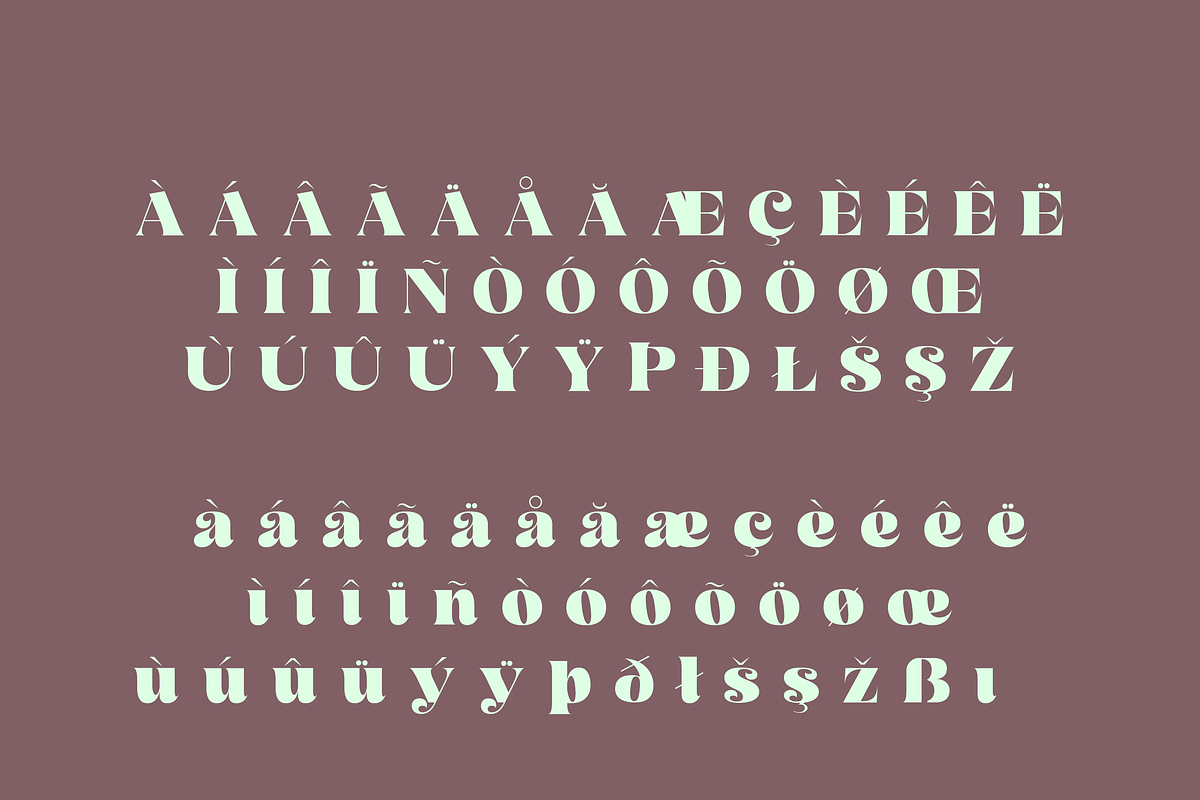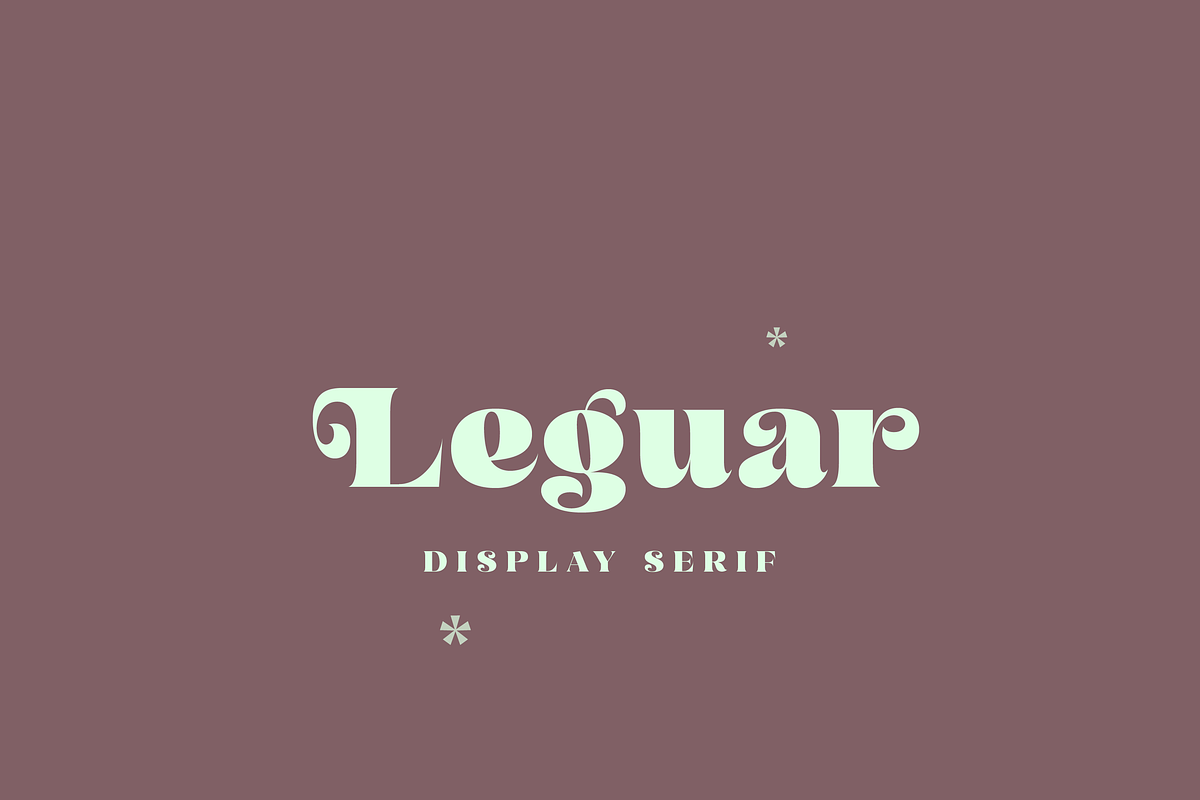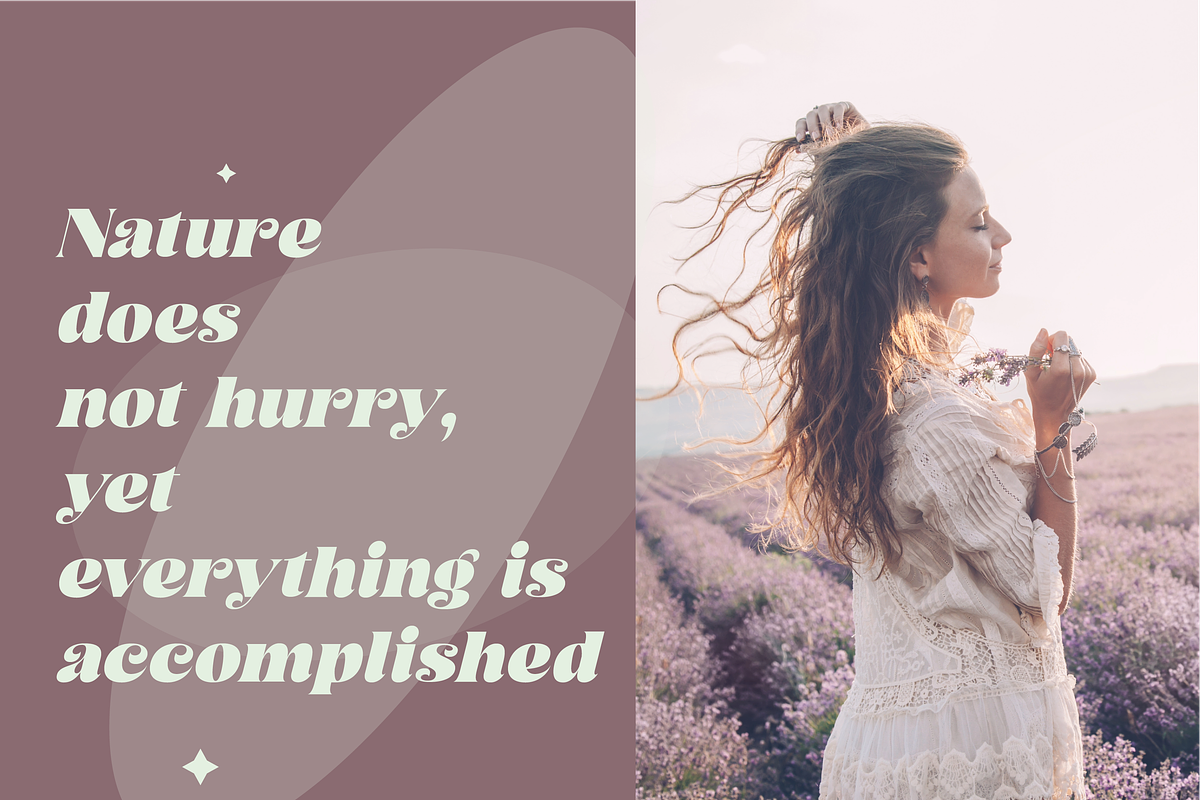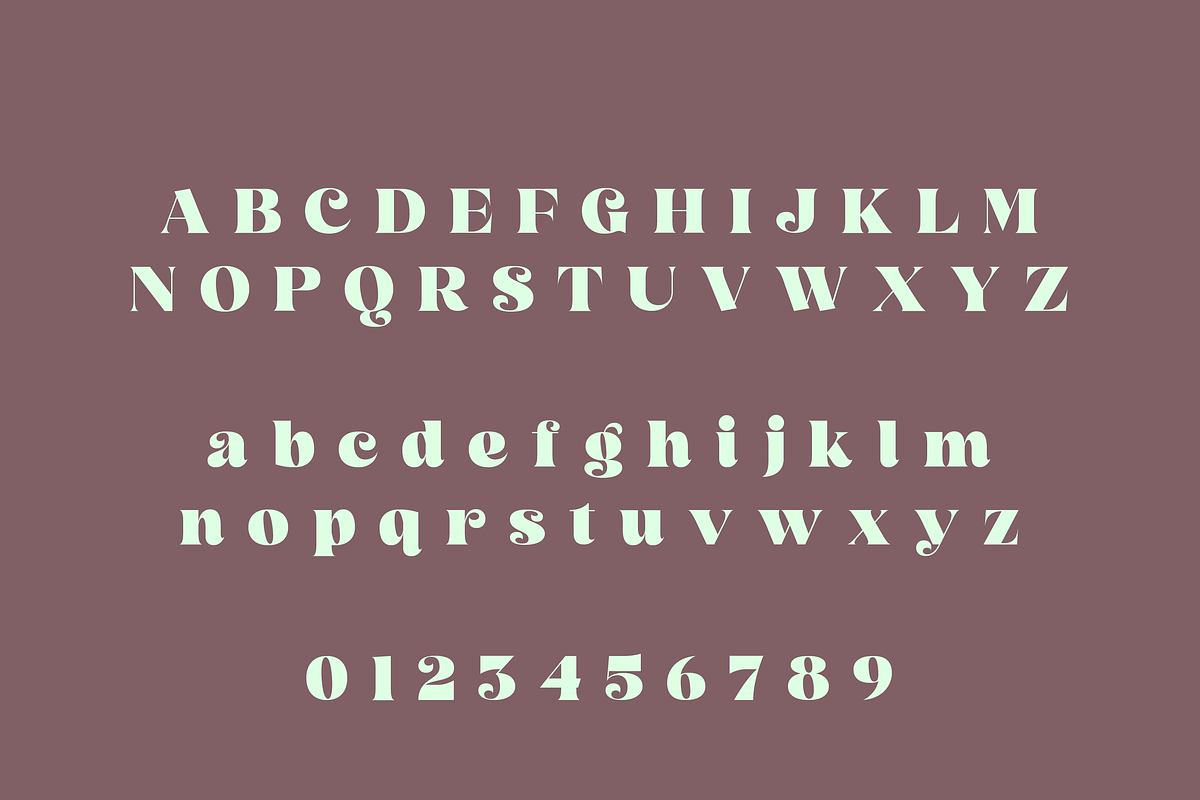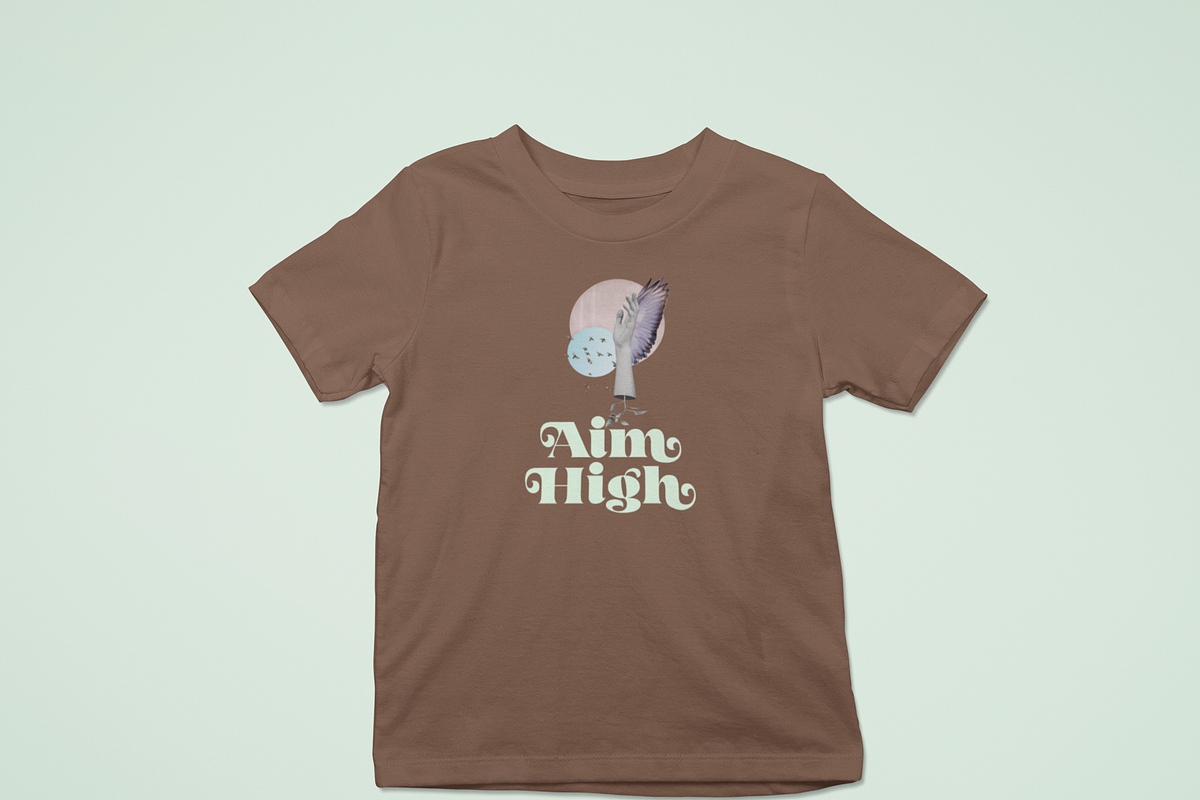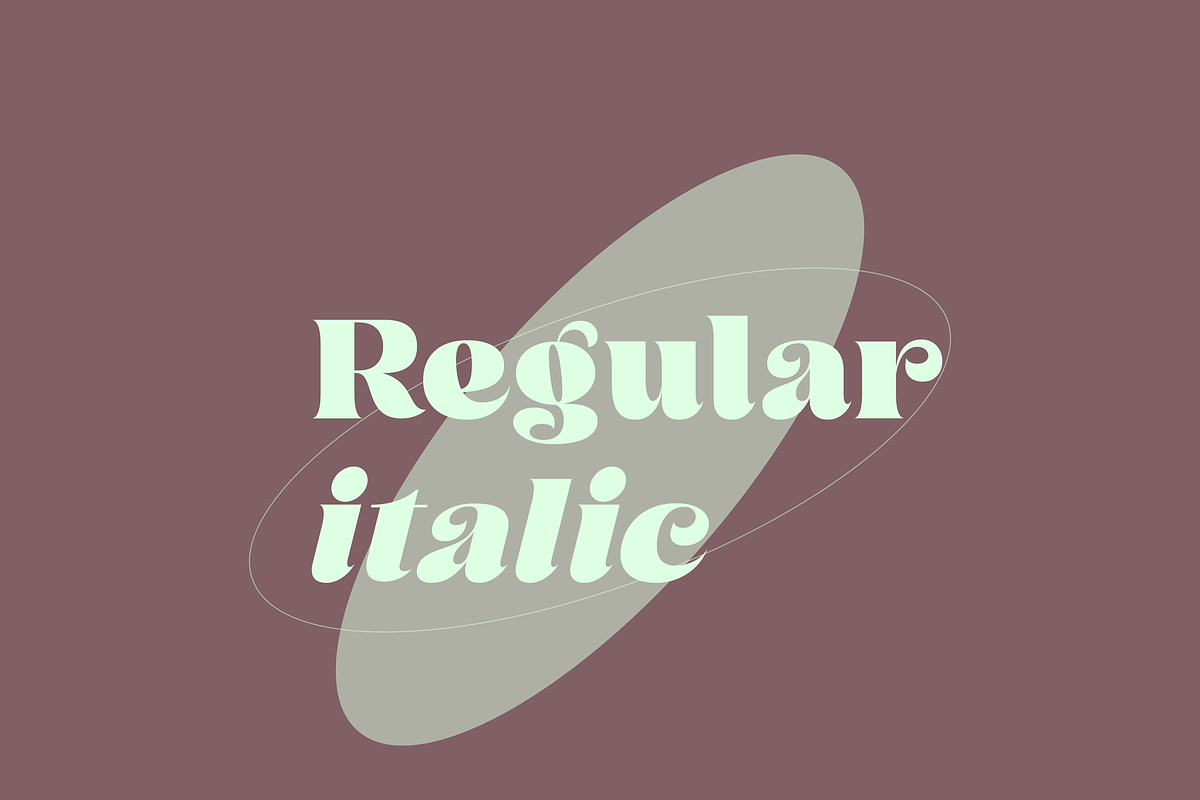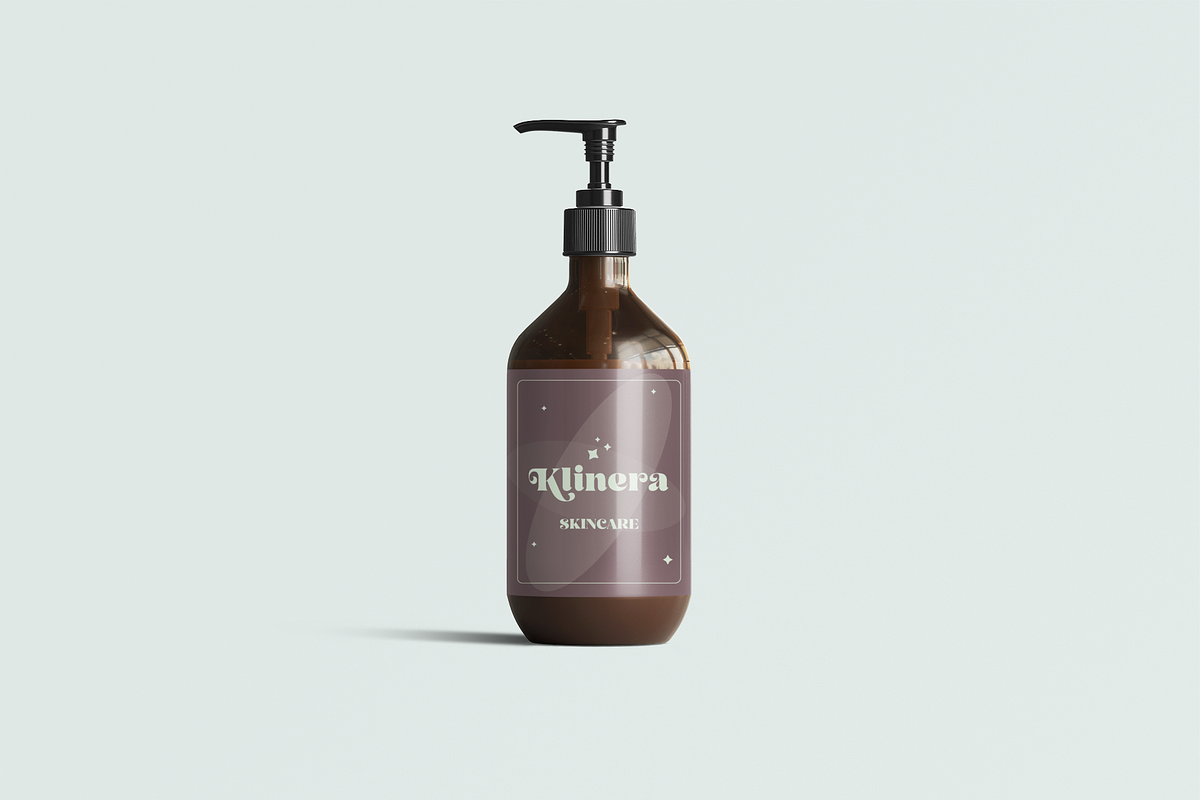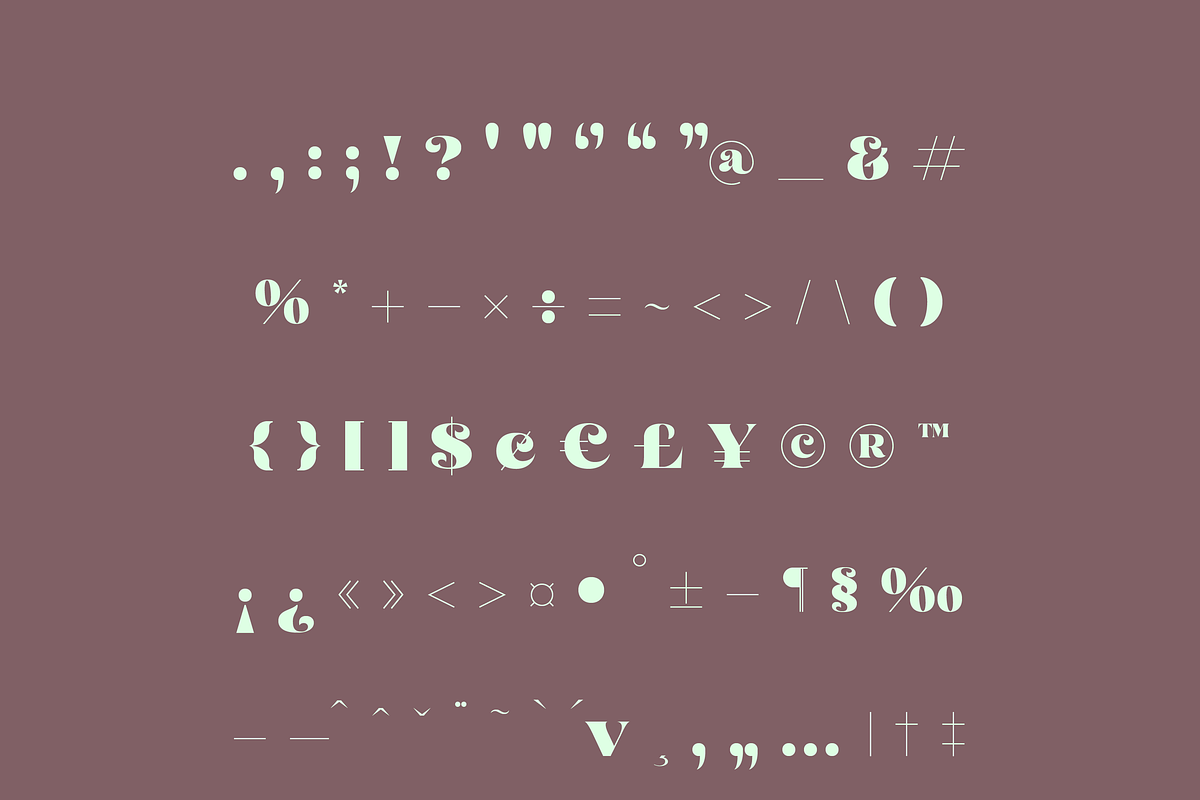
Leguar – A Modern Serif
Leguar – A Modern Serif with Stylish Alternates
Leguar is a refined alternate serif designed to bring elegance and versatility to any project. Created by DesignTweaksCo.Co, this typeface blends luxurious sophistication with a modern aesthetic, making it ideal for branding, packaging, apparel, invitations, book covers, and more.